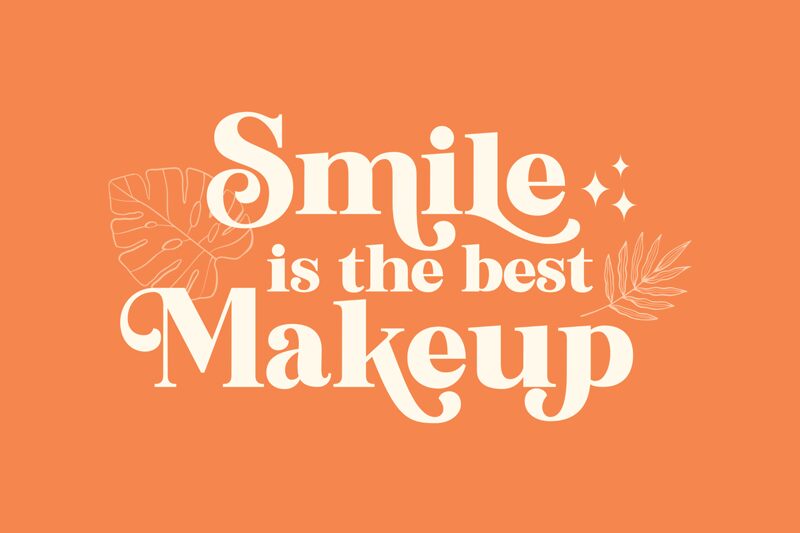
Brodies Stylish
Brodies Stylish, a creation by Letterflow, is a bold serif font that exudes modernity and positivity. With clean forms and slightly curly letter ends, this typeface adds a friendly touch to any design.
Boasting a Regular and Stylish version, as well as Opentype features like stylistic alternates and standard ligatures, Brodies is versatile for headlines, magazines, logotypes, food packaging, advertising projects, and beyond.
Elevate your designs with the bright character of Brodies Stylish font family.